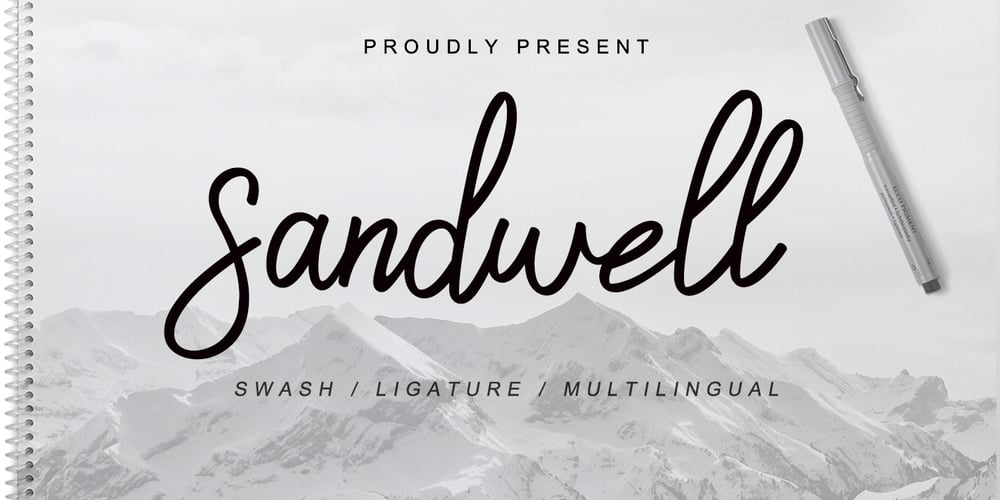
Sandwell Font Family was designed by Agung Eko Nugroho and published by AEN Creative Studio. Sandwell contains 1 styles and family package options. Sandwell is a great font for your project. It’s made with simple, casual and elegant taste, and comes with a natural touch, swashes, and ligatures. Sandwell is perfect for logos, wedding invitations, posters, social media posts, signatures and much more!